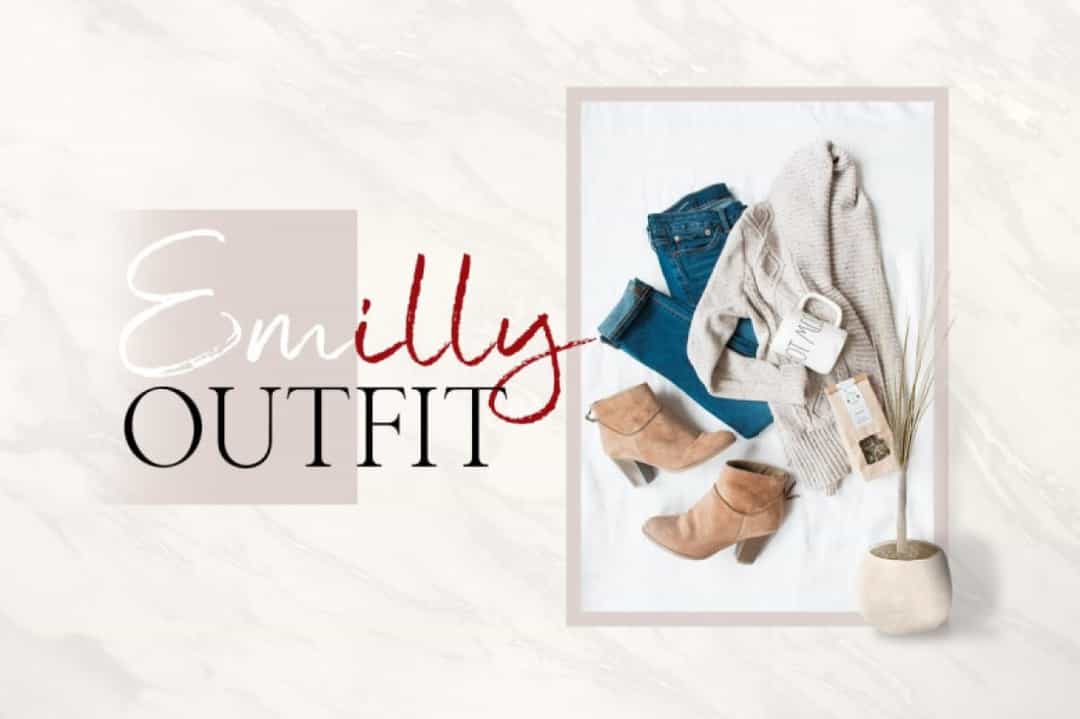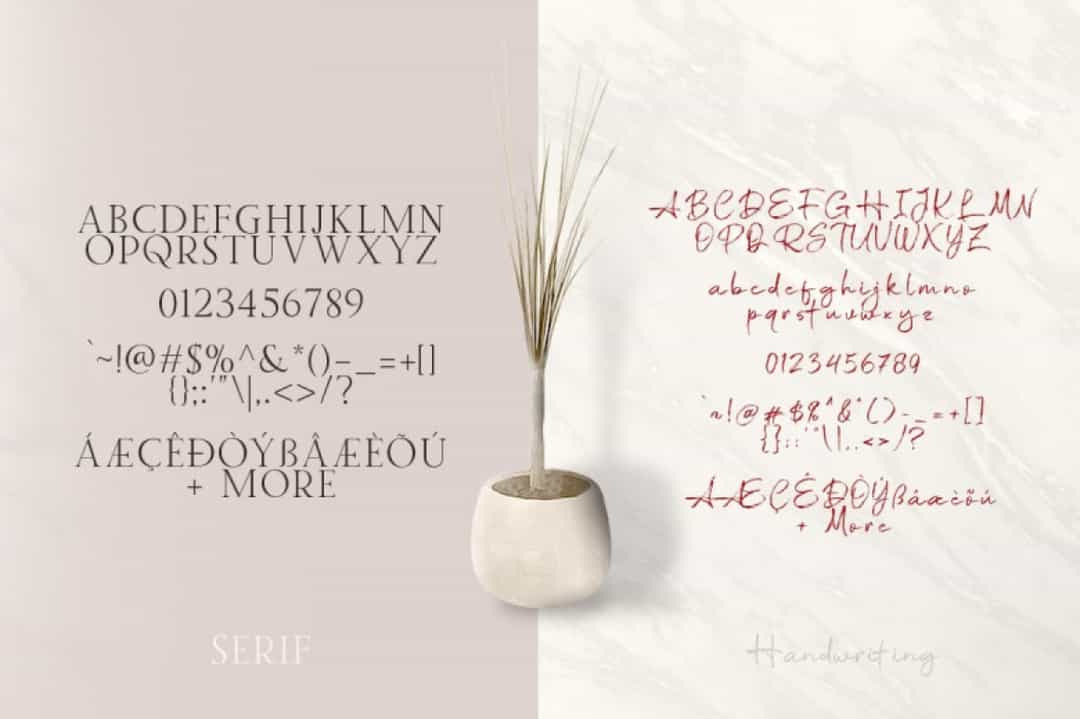
Discover Twice Writing Font, part of the Brush Serif collection—a versatile and unique font perfect for adding a personal touch to your projects. Download it for free and enjoy crafting designs with style, from invitations to social media posts. This font is available exclusively for personal use, giving you the freedom to create without limits. Unlock your creativity with Twice Writing Font today!
Twice Writing is an exciting duo font style, featuring serif and script brush characteristics. Perfect for logos, posters magazine covers books banners book covers and more! Take advantage of Twice Writing font to create beautiful designs – its adaptability allows it to fit seamlessly with various types of designs so it stands out! Use Twice Writing’s innovative features in your designs today – take advantage of its versatility by using it!